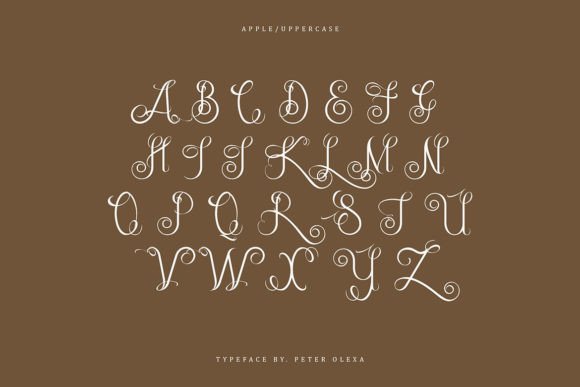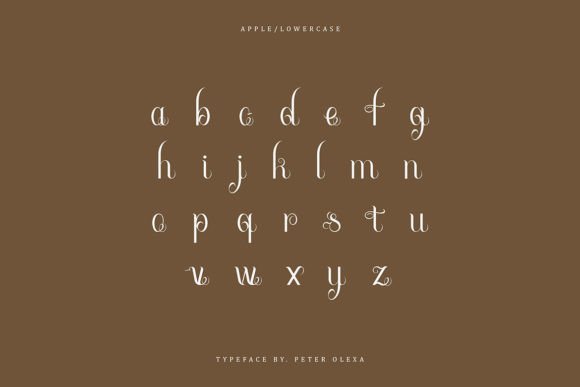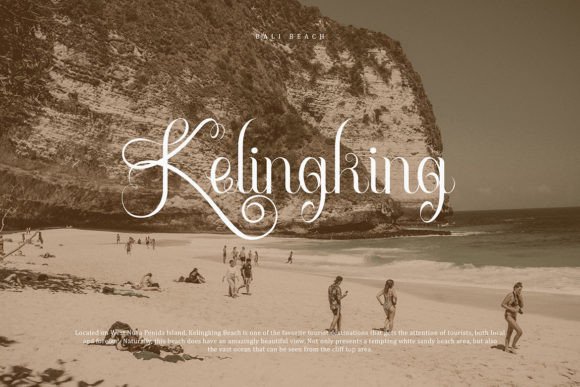
Unleash the Romance with the Apple Font
Have you ever stumbled upon the perfect font while browsing through design inspirations, and suddenly your creative juices start flowing? That’s exactly what happened when I discovered the Apple Font. Its elegant, retro script style had me hooked from the very beginning. I couldn’t wait to incorporate it into my next design project.
| 👤 Author | JumboDesign |
The Apple Font is a romantic and retro script font, designed to add a touch of luxury to any design. Its exclusive feel makes it perfect for special occasions like weddings, anniversaries, and other celebrations. Whether you’re a seasoned designer or just starting out, the Apple Font is a valuable addition to your toolkit. Its versatility and timeless charm make it a great choice for any project that requires a sophisticated and elegant look.
Key Features of Apple Font
Apple Font Review